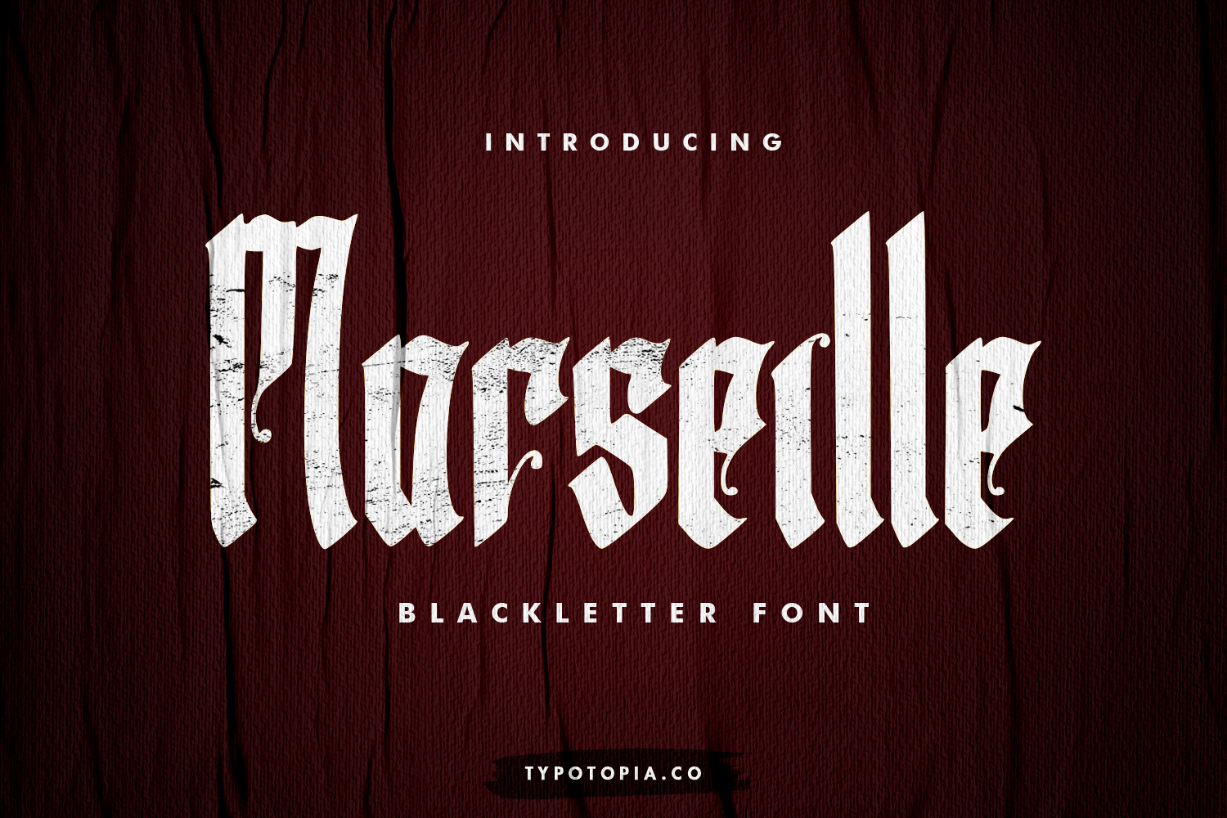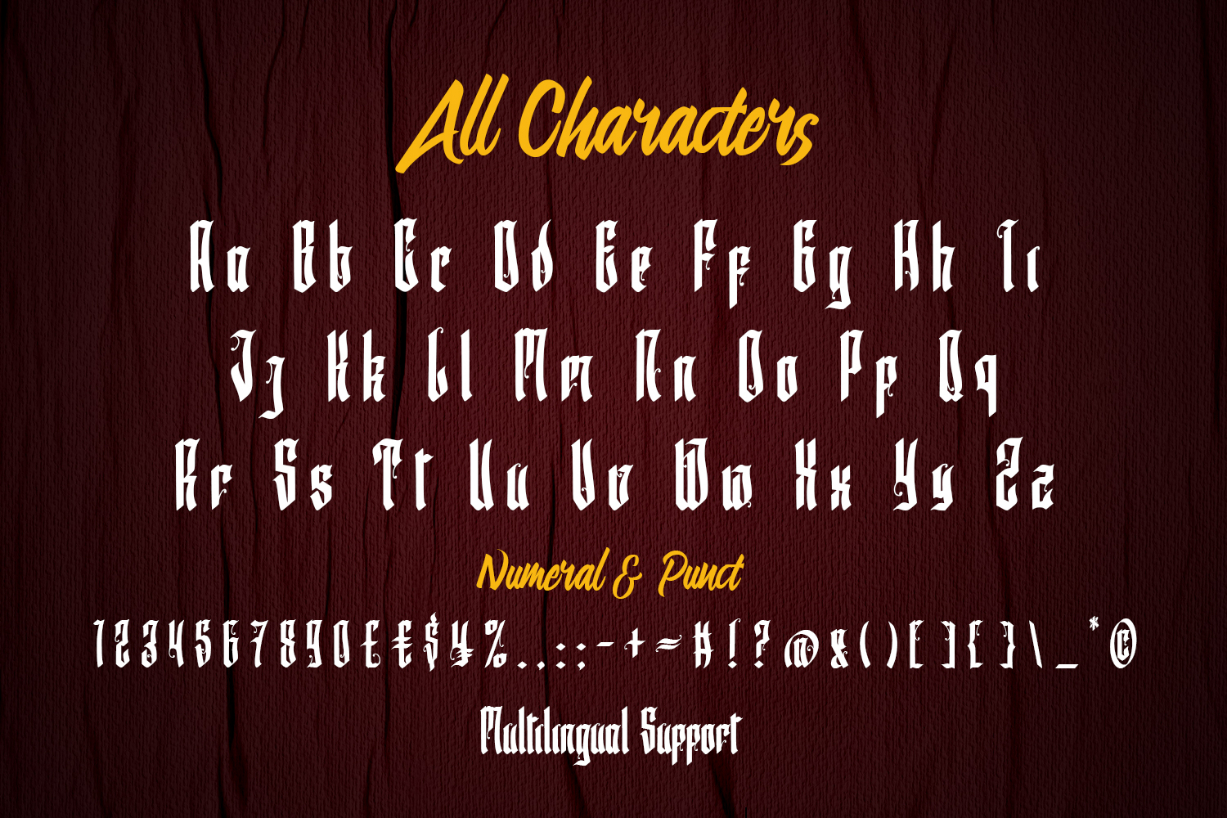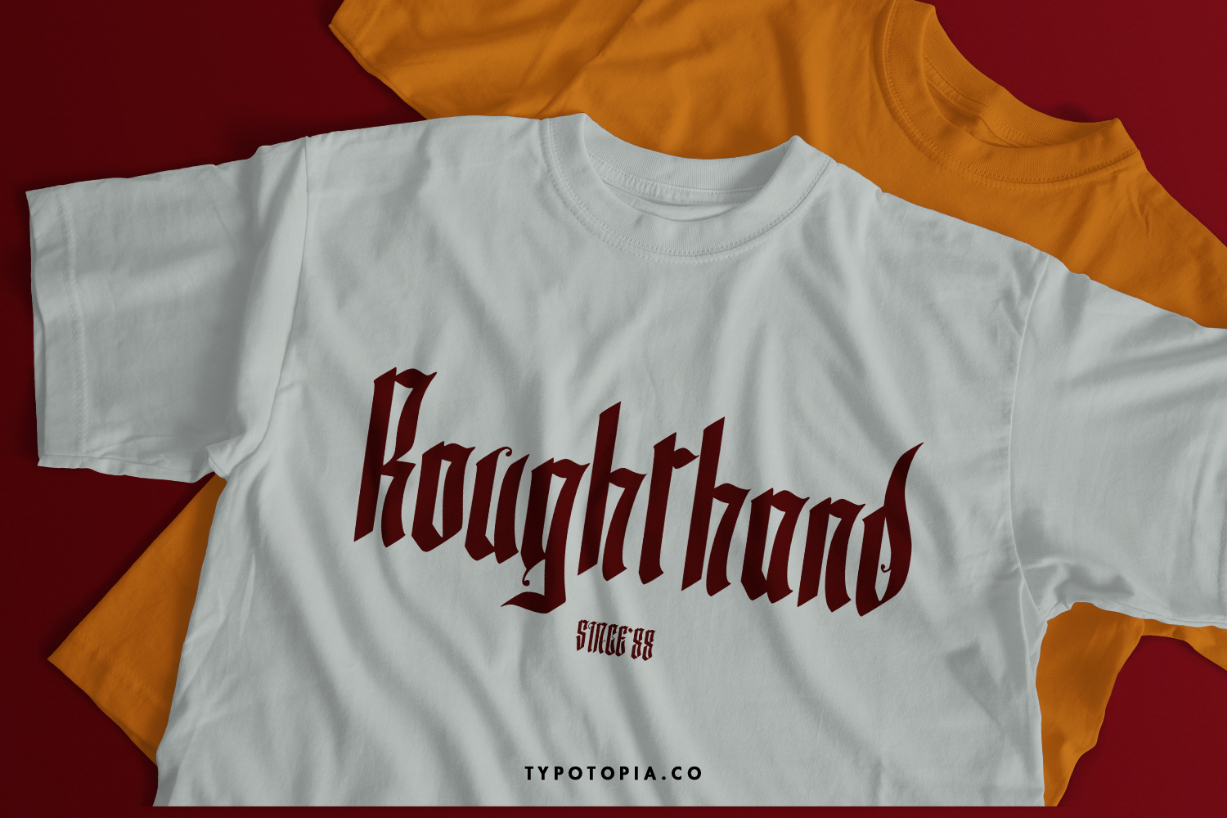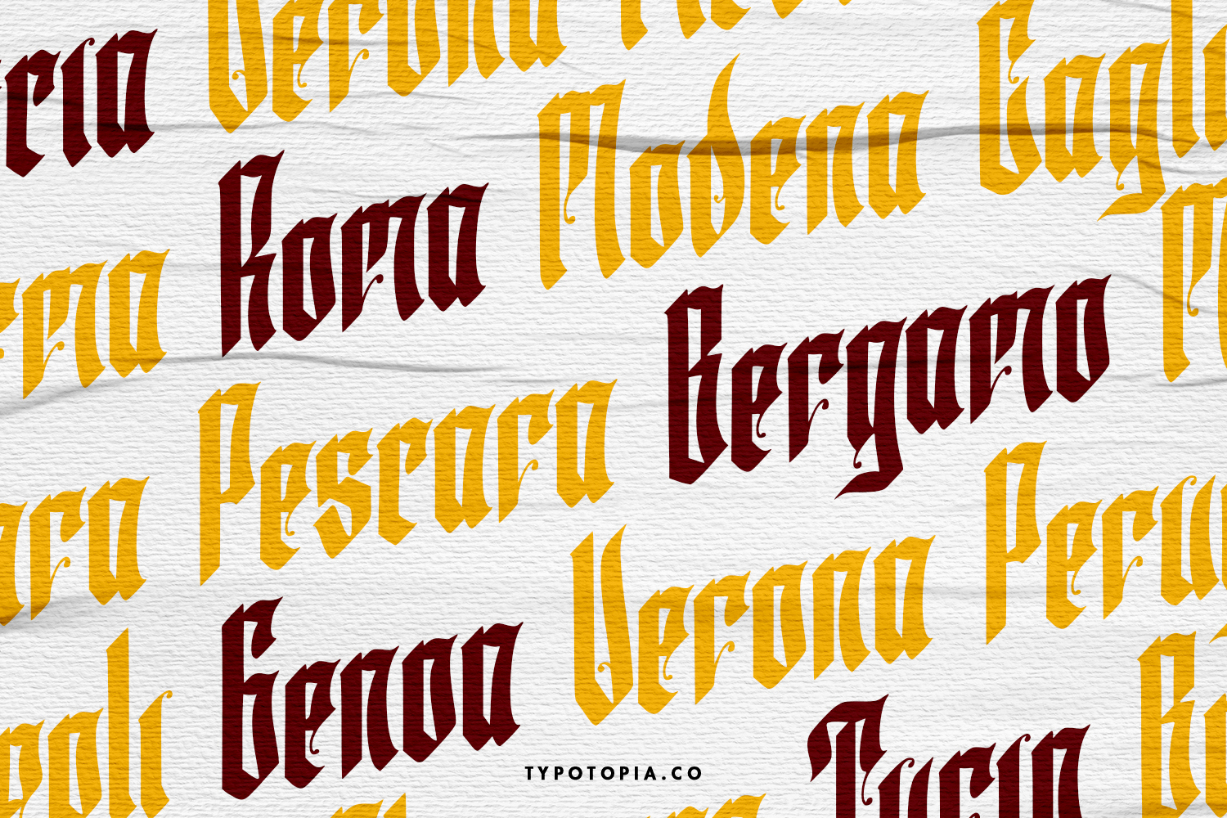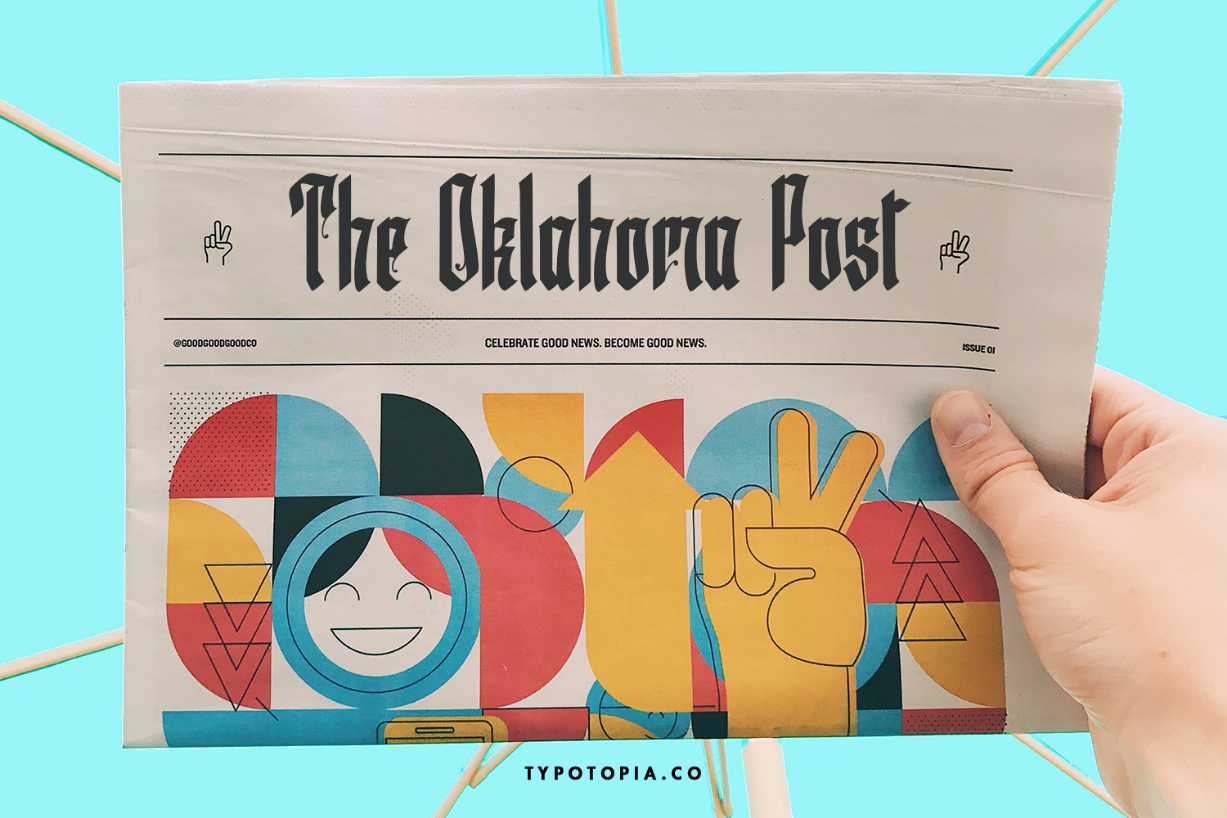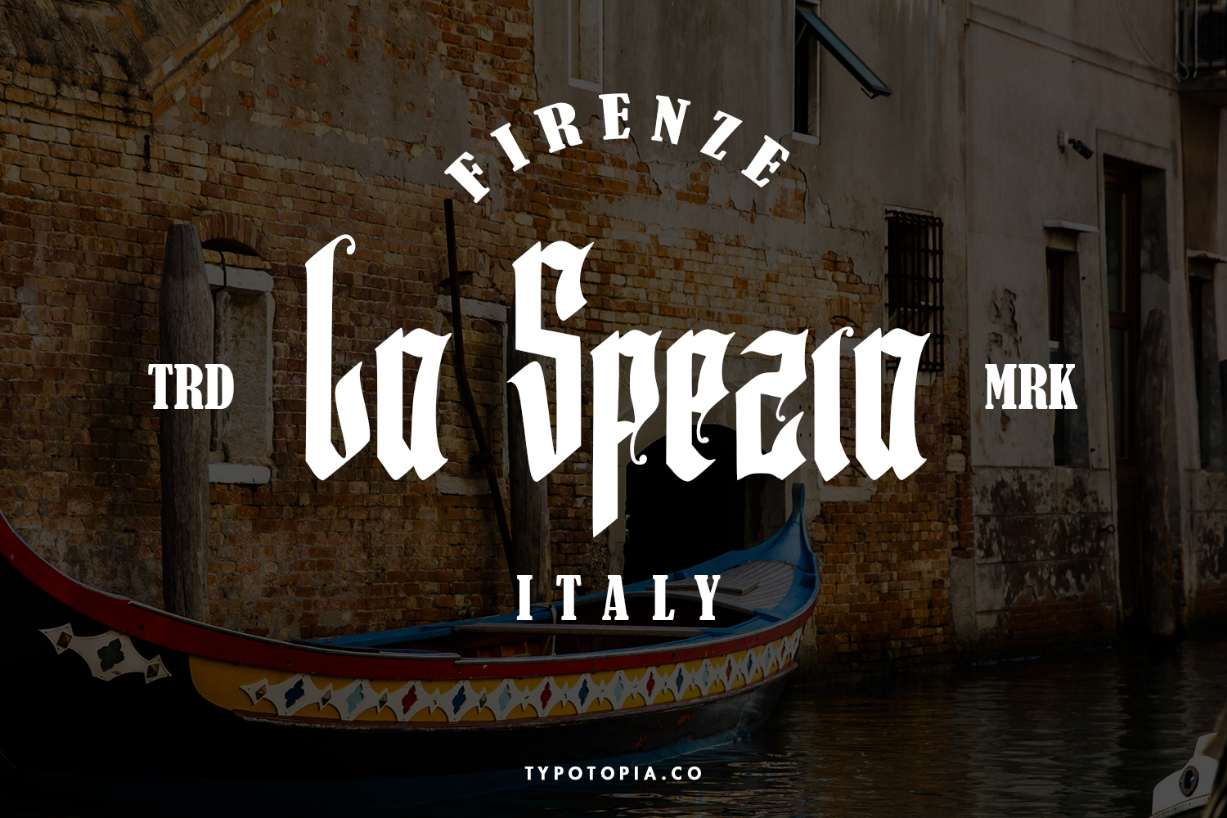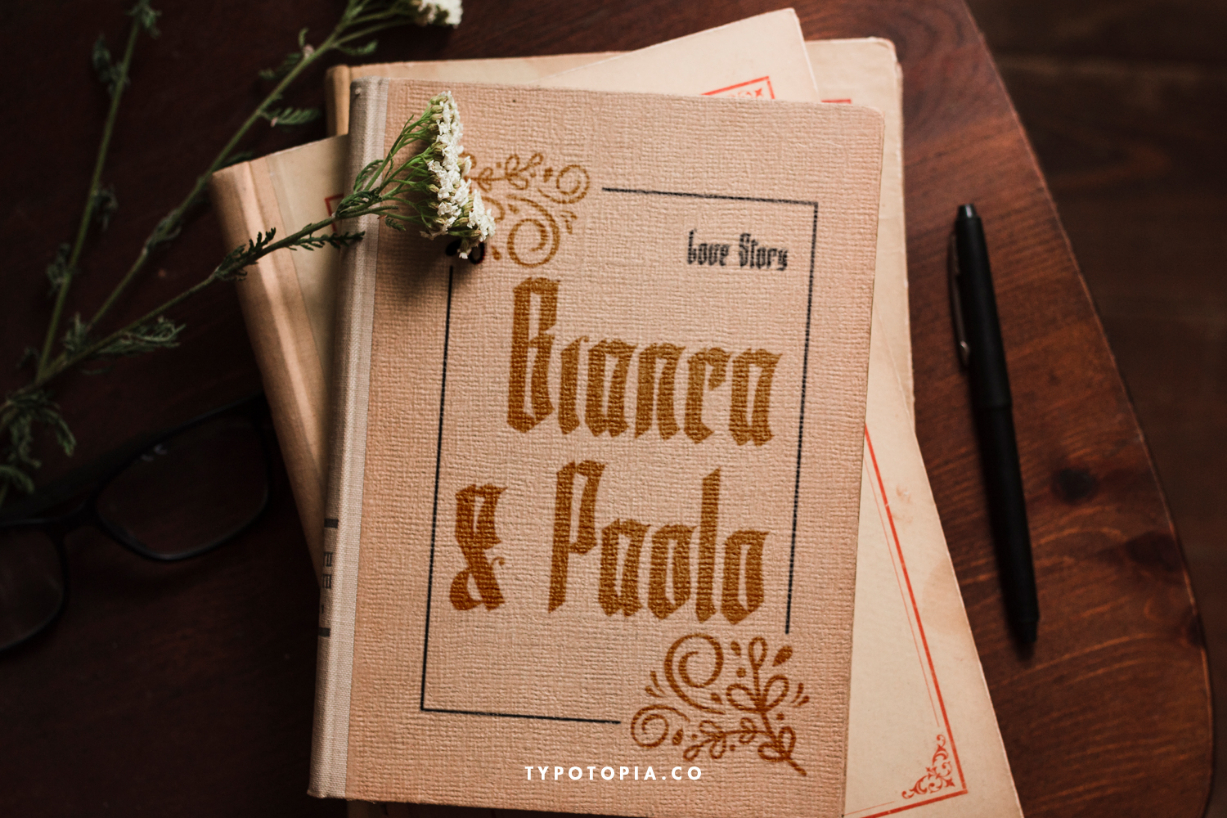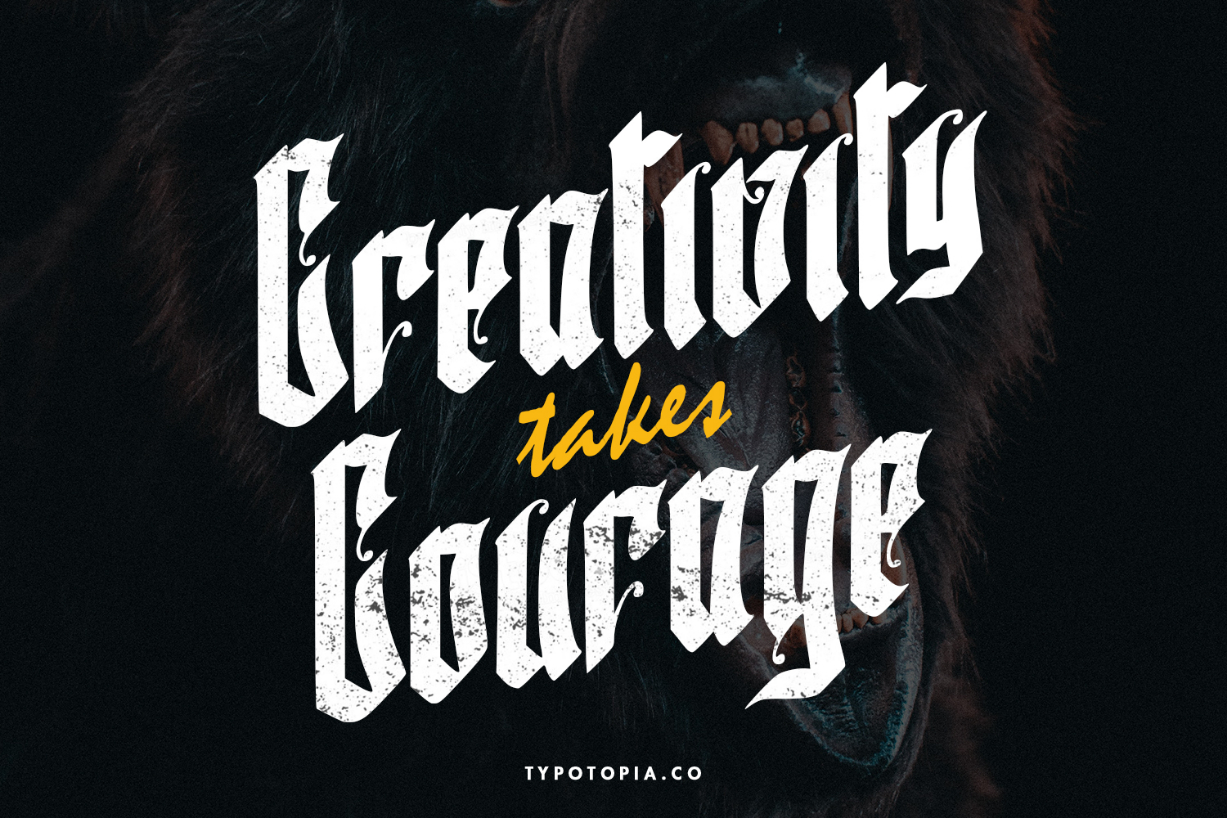
Marseille Font
About Marseille Font
Marseille is a simple and elegant blackletter font. Add this font to your favorite creative ideas and notice how it makes them come alive!